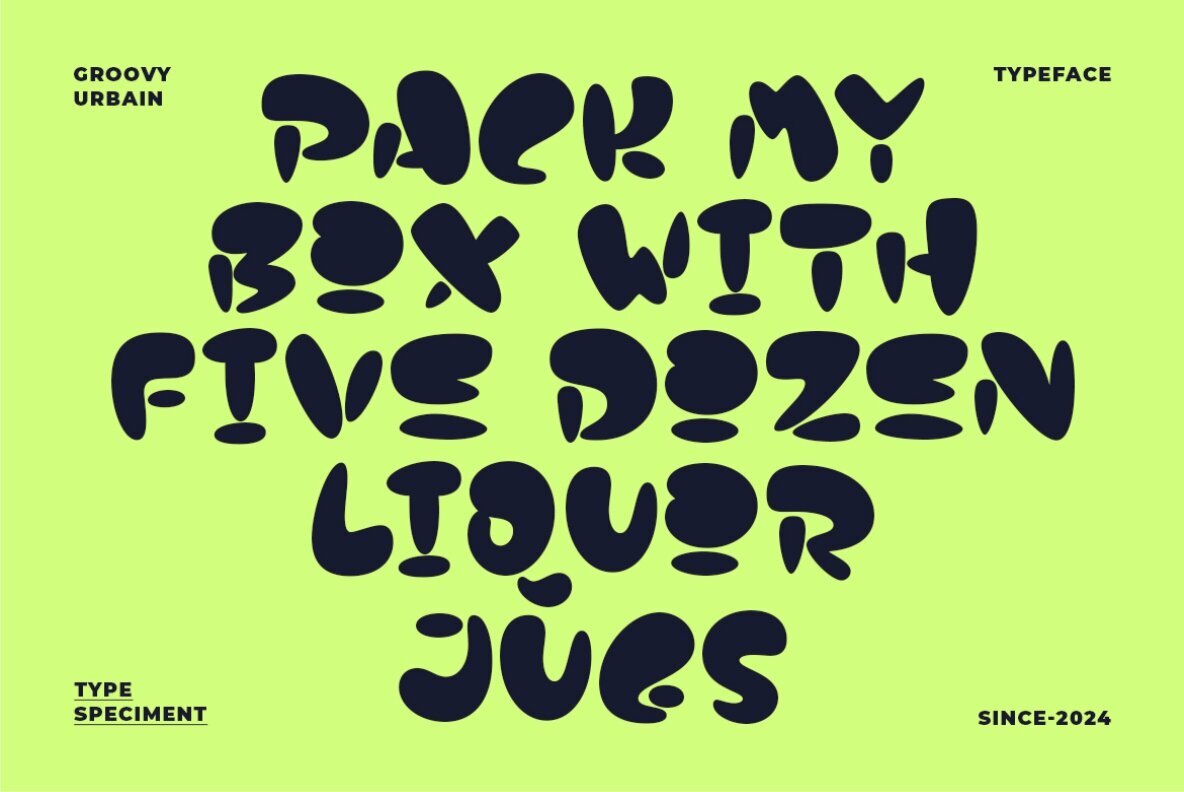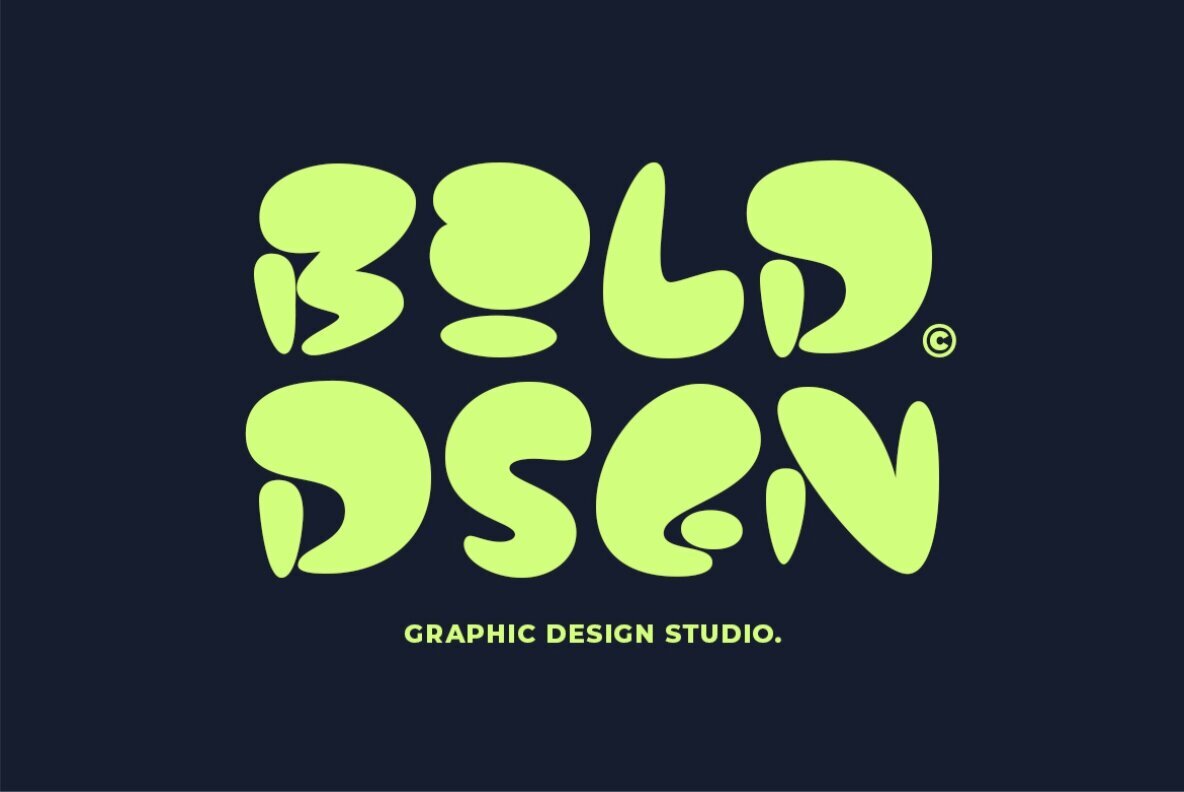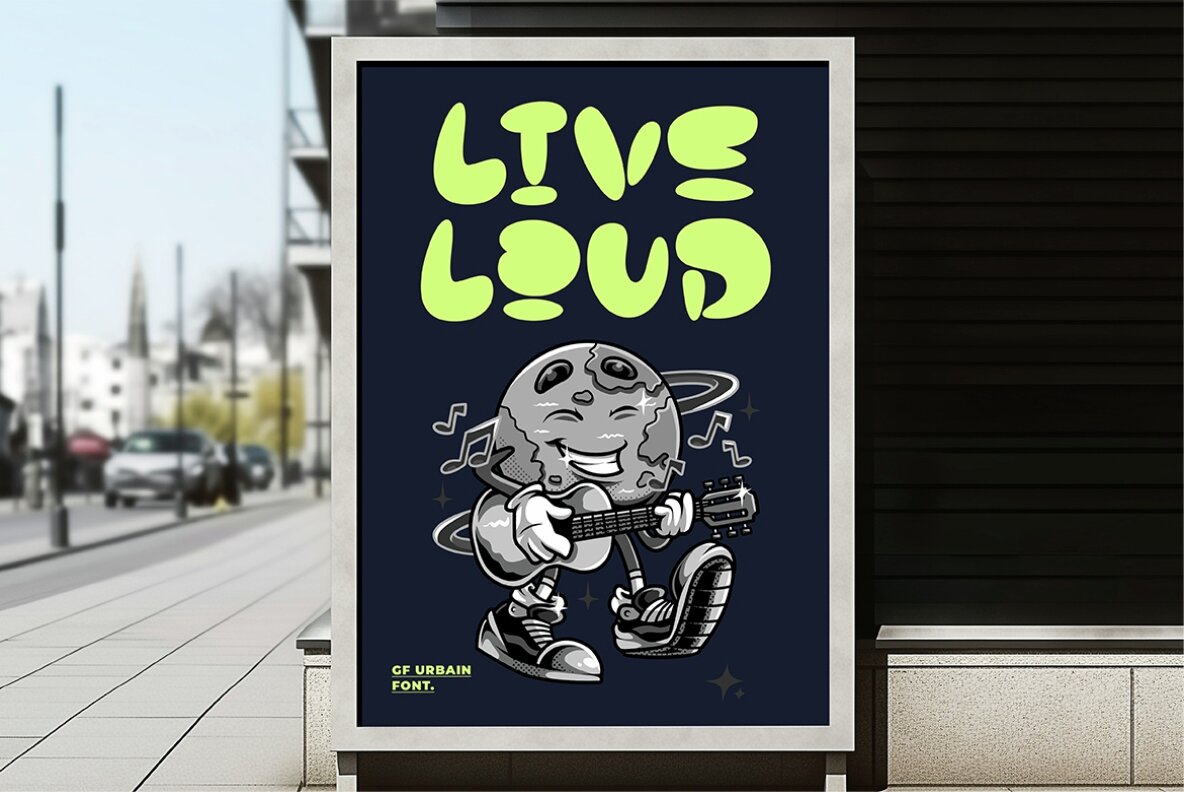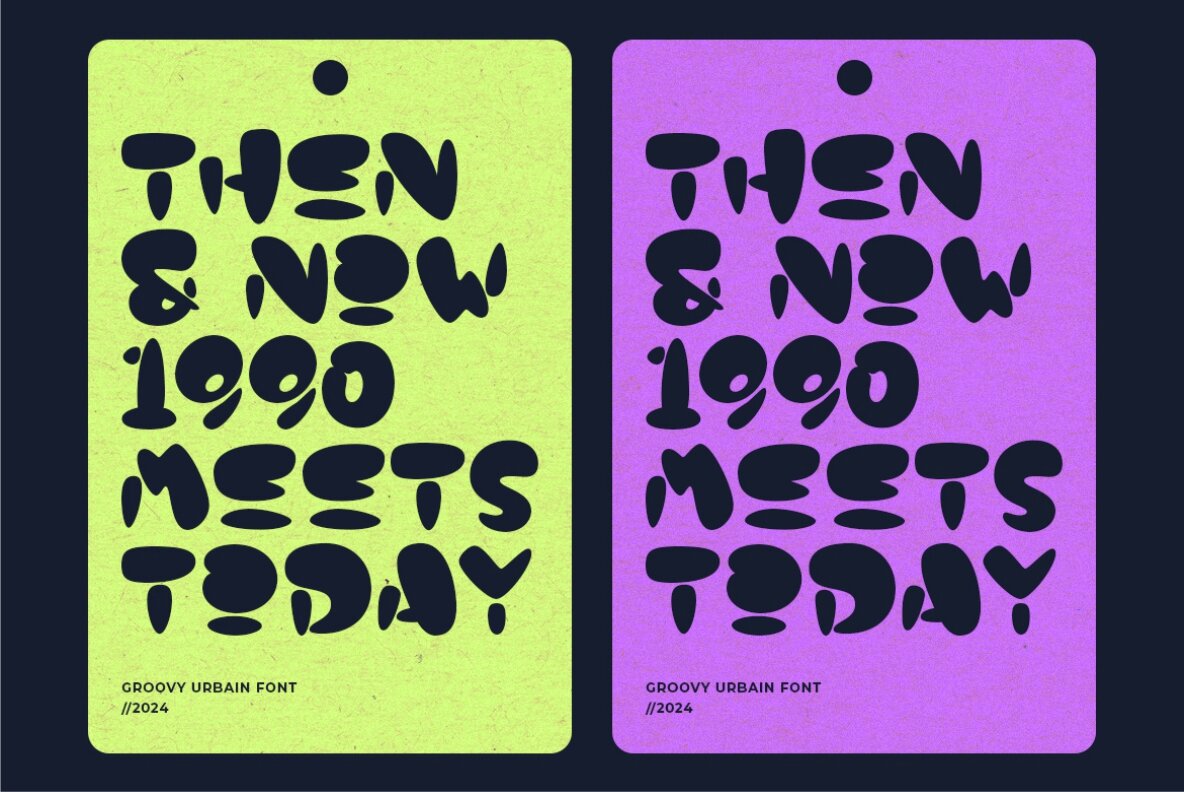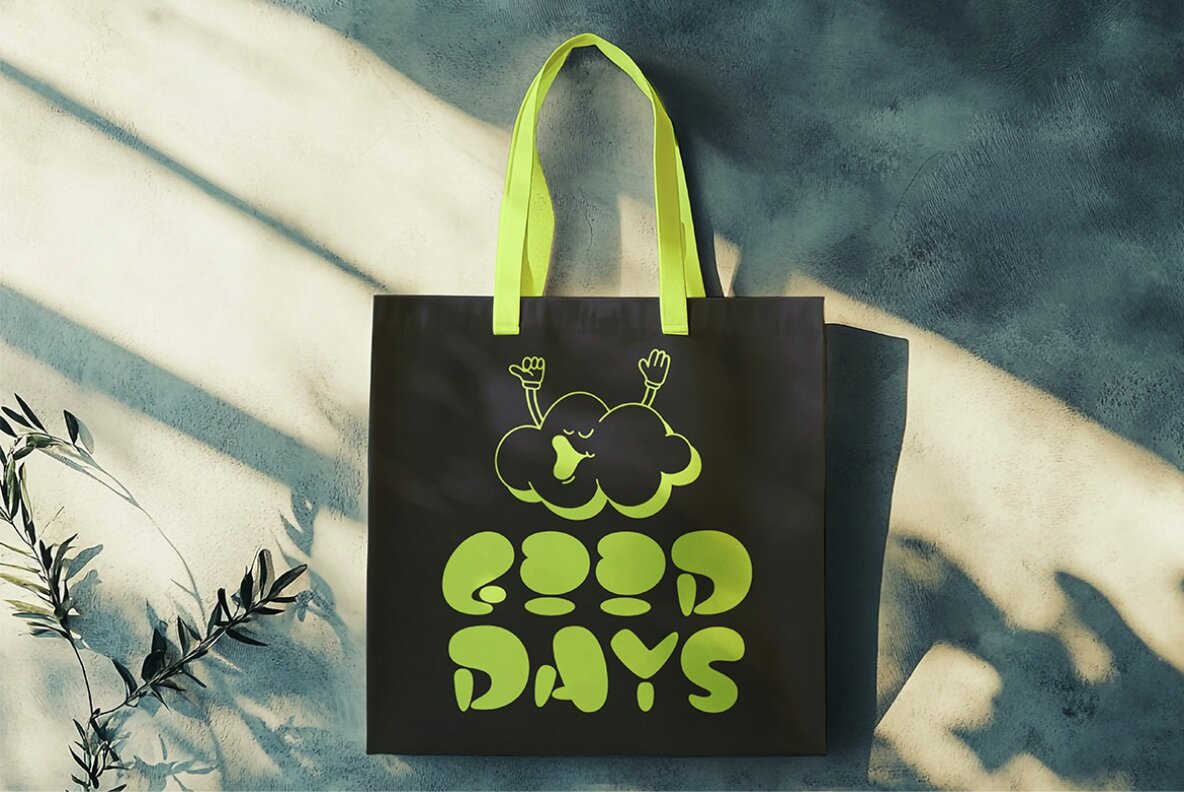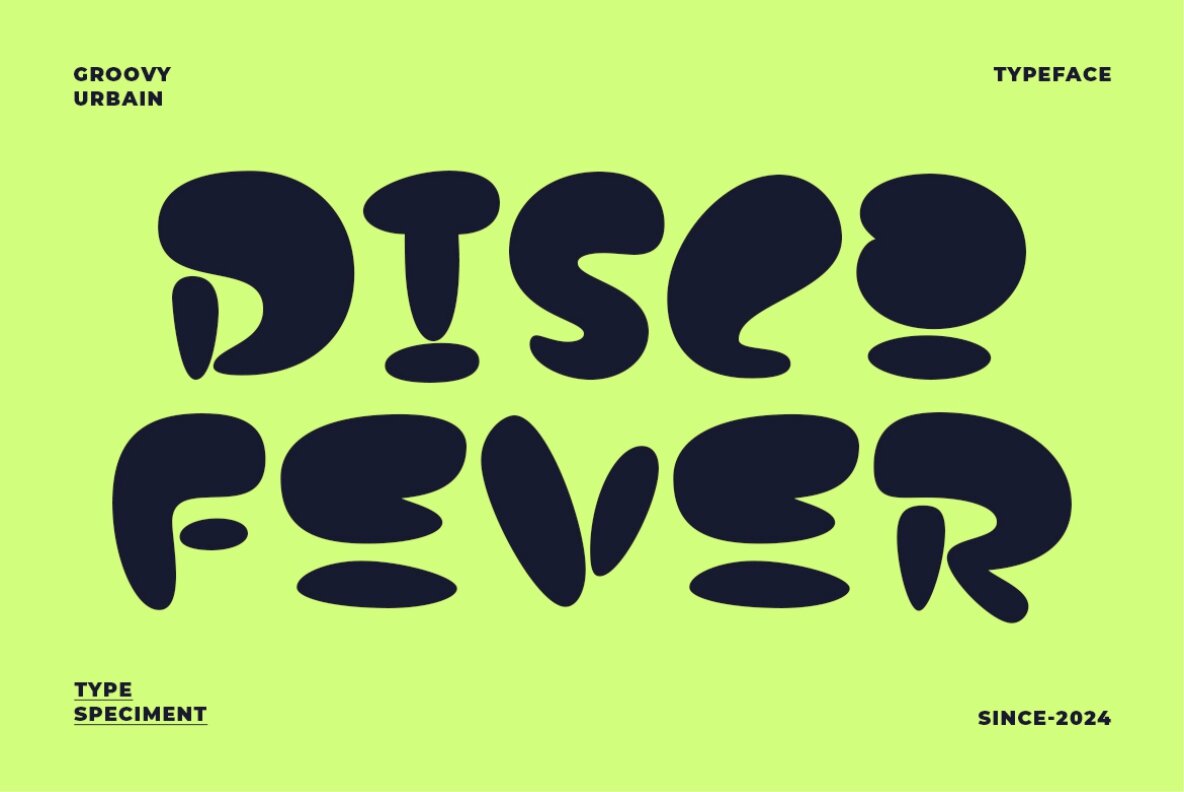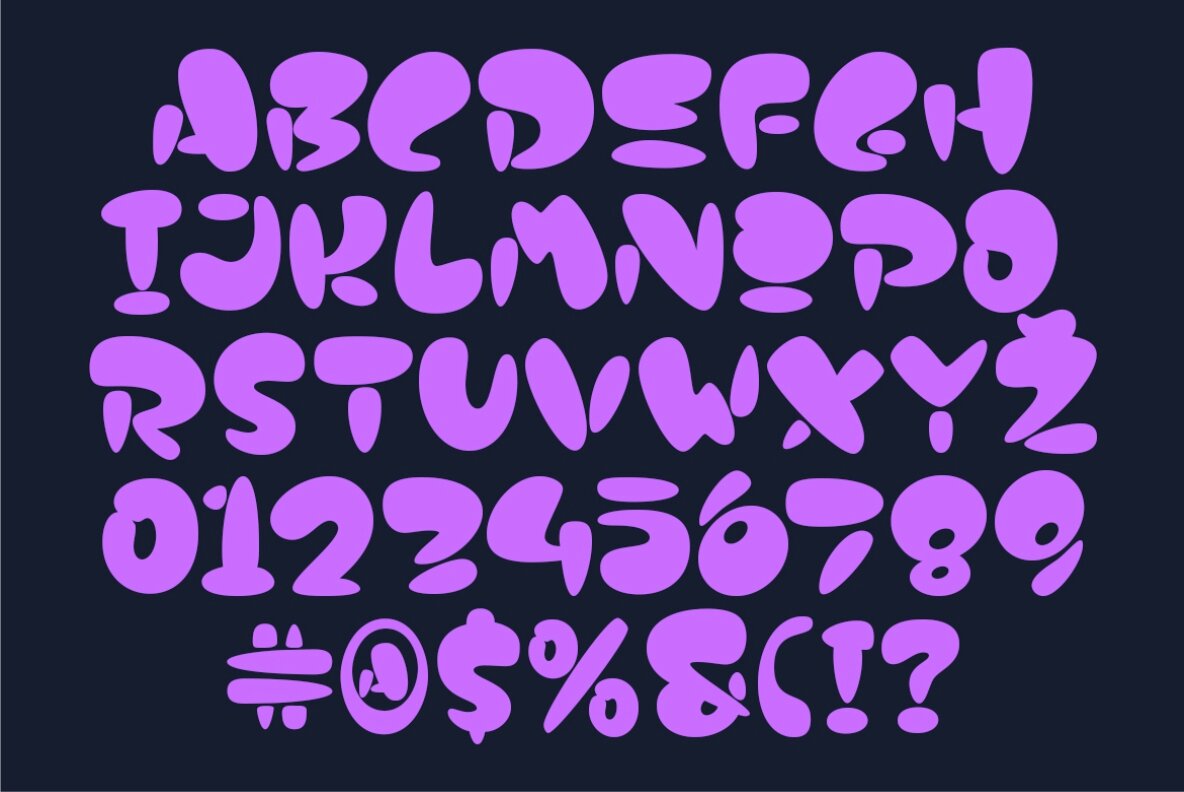
GF Urbain Font
GF Urbain
GF Urbain is a chubby and bold display font characterized by its whimsical design, making it a perfect choice for projects with a cartoon-inspired theme. With its chunky appearance and playful aesthetic, this font injects a sense of fun and creativity into any design, ideal for conveying a light-hearted and jovial tone. Whether you are working on branding, illustrations, or another creative endeavor, GF Urbain is sure to bring charm and character to your project.
This delightful font offers a complete set of features, including uppercase and lowercase letters, numerals, punctuation, and multilingual support. The charming and friendly style of GF Urbain enhances the visual appeal of any layout, inviting a whimsical touch that engages viewers and adds a unique personality to your work.